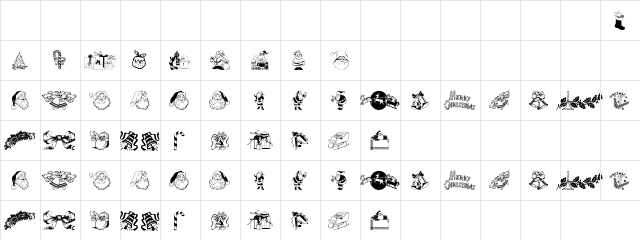
Xmas celebration Regular
Design Context for Xmas celebration Typeface
Xmas celebration is a composed and adaptable typeface that performs quietly and consistently across a wide range of design contexts.